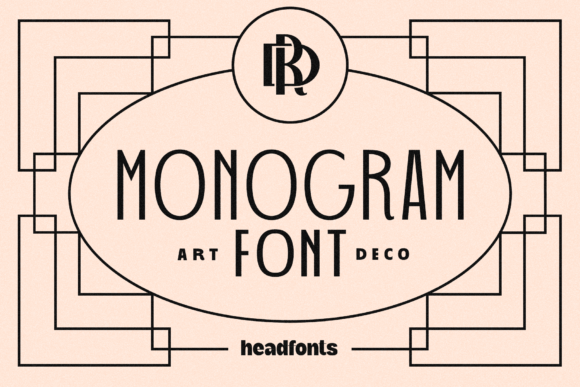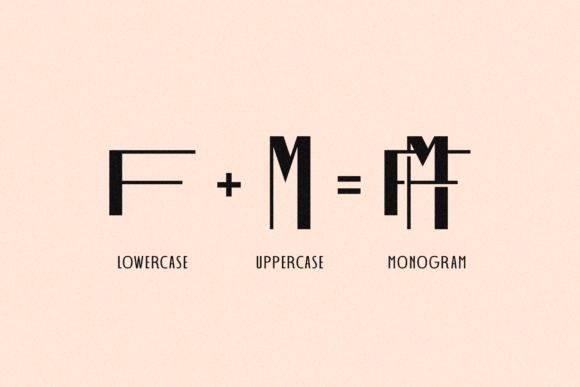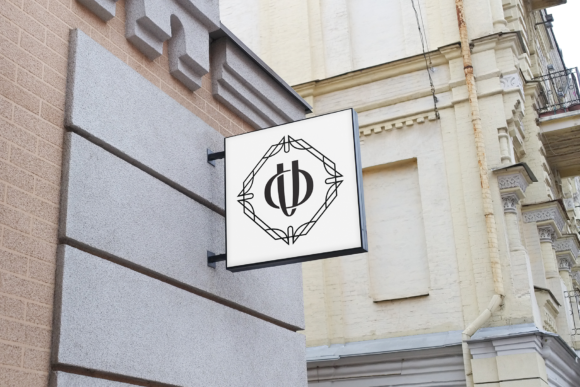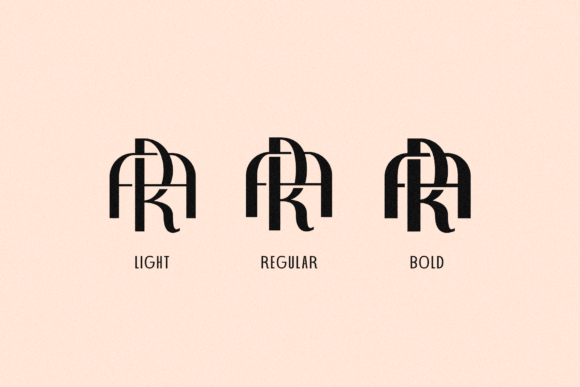
Art Deco Monogram Font
About the Art Deco Monogram Font
The wait is over! The incredible Art Deco Monogram Font is now available for your design toolkit. Art Deco Monogram is a modern and uniquely lettered display font. It will elevate a wide range of crafting ideas, from cards, to branding, labels and much more.
This font excels as a display typeface for headlines, logos, and short text elements in branding projects, posters, and packaging designs. Its strong geometric forms and Art Deco styling lend themselves well to conveying luxury, sophistication, and a touch of vintage flair. Avoid using it for body text or long paragraphs; its decorative nature makes it less legible at smaller sizes.
Art Deco Monogram’s personality is bold and elegant, with a hint of vintage glamour. It’s ideal for brands aiming for a sophisticated, timeless image, such as high-end fashion, jewelry, or art-related businesses.
For effective pairings, consider complementing it with a clean sans-serif like Montserrat for body copy, or a classic serif like Garamond for a more traditional feel. A simple geometric sans-serif would also work well to maintain the modern aesthetic.